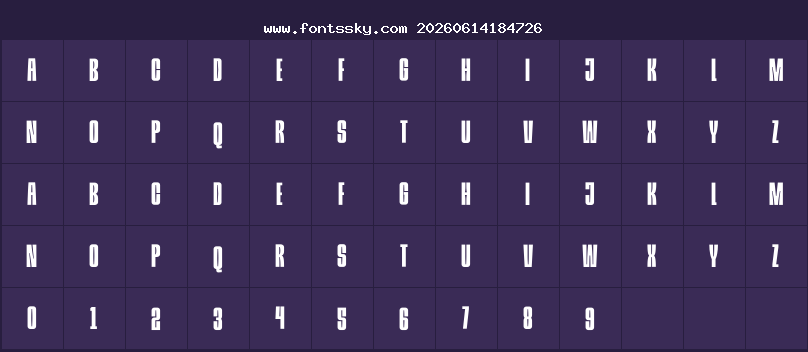
Krisha Preview
• Font Name: Krisha
• Full Font Name: Krisha Regular
• Character Count: 208
• Designer: Daler Mukhiddinov
About Krisha.otf
Krisha.otf is a modern, elegant sans-serif font designed for ultimate readability and visual harmony. Perfect for branding, headlines, web design, and print materials.